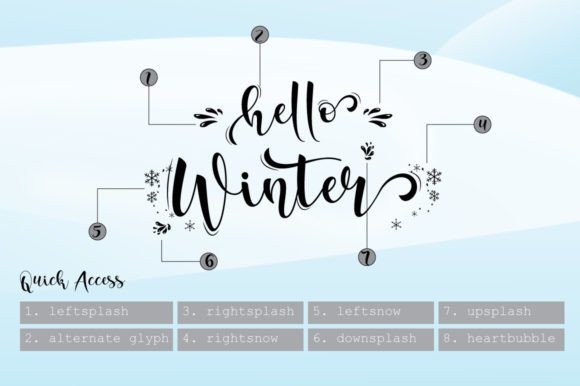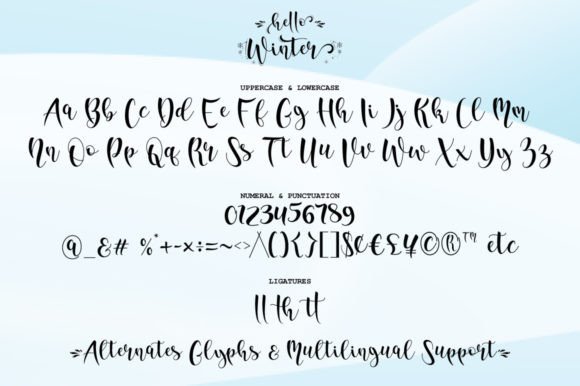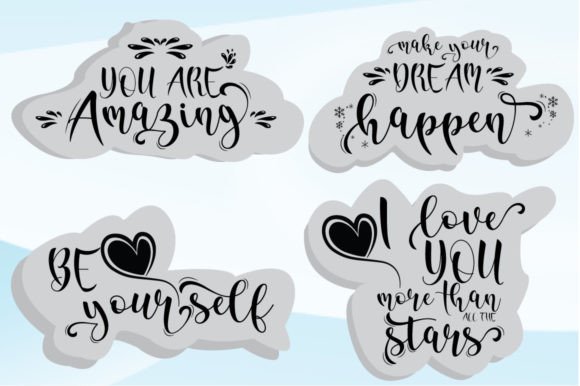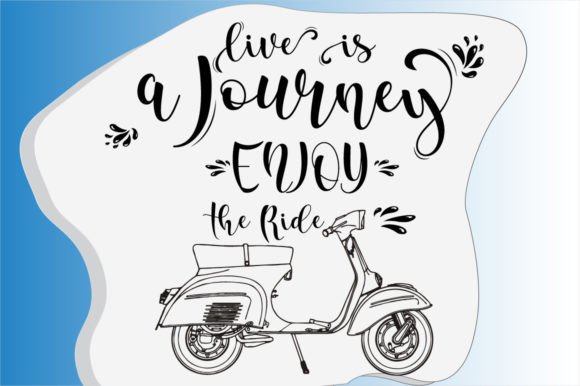
A Bouncy and Playful Script Font
The Hello Winter Font is a bouncy script typeface that is sweet, playful, and authentic. With its lively, flowing strokes and extra glyphs, this font adds a fun and creative touch to your designs. Whether you’re working on quotes, stickers, t-shirt mock-ups, or social media graphics, this font ensures your project stands out with a unique, joyful style.
Ideal for Playful Designs and Craft Projects
For craft projects or anything that needs a playful touch, the Hello Winter Font is an excellent choice. Whether you’re designing for scrapbooking, gift tags, or DIY projects, this font brings fun and whimsy to your creations. Its bouncy letters add a sense of joy and personality, making it ideal for all kinds of crafty designs that need a lighthearted feel.
Perfect for Quotes and Social Media
The Hello Winter Font is perfect for quotes and social media graphics. Whether you’re designing for Instagram posts, Pinterest graphics, or motivational quotes, this font adds an engaging, playful vibe to your text. Its fun and authentic style ensures your posts grab attention and communicate your message in a creative, approachable way.
Great for T-Shirt Mock-Ups and Apparel Designs
For t-shirt mock-ups and apparel designs, the Hello Winter Font brings a stylish and playful touch. Whether you’re creating custom t-shirts, sweatshirts, or hoodies, this font’s bouncy strokes make it ideal for funny quotes, seasonal designs, or personalized messages. Your apparel designs will stand out with this unique font that adds both style and energy.
Ideal for Stickers and Sublimation
For stickers and sublimation projects, the Hello Winter Font is a fantastic option. Whether you’re designing for custom stickers, holiday decorations, or personalized items, this font adds a playful, whimsical touch to your designs. Its extra glyphs and flowing design ensure your text remains dynamic and fun, making it perfect for decorative items.
Versatile, Legible, and Fun
Despite its playful nature, the Hello Winter Font remains legible and easy to use. Its flowing strokes are clear and easy to read, even when used in smaller sizes or for longer passages. Whether you’re working on headlines, captions, or body text, this font provides a great balance of fun and readability, making it suitable for various design needs.
PUA Encoded for Easy Access to Glyphs
The Hello Winter Font is PUA encoded, which means you can easily access all of its glyphs and swashes. This allows you to incorporate extra characters, flourishes, and decorative elements into your designs with ease. Whether you’re working on custom stickers or personalized gifts, this font’s versatility gives you the flexibility to create designs that are uniquely yours.
The Hello Winter Font is easy to use and works seamlessly with most design software. Whether you’re working on digital designs, branding, or product designs, this font ensures your projects are polished and professional. Its adaptability makes it perfect for both digital and print media, allowing you to use it across various platforms and creative formats.
Add Fun and Playfulness to Your Designs with Hello Winter Font
If you’re looking for a playful, sweet, and authentic handwritten font to enhance your designs, the Hello Winter Font is the perfect choice. Whether you’re working on quotes, t-shirt mock-ups, stickers, or social media graphics, this font brings a fun, creative flair to your projects. Let the add joy and whimsy to your designs and create memorable projects that stand out.